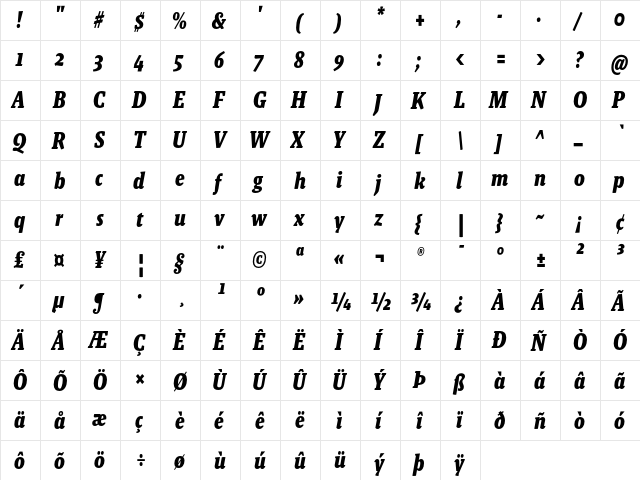
Malaga Narrow OT Bold Italic Font Preview
| Foundry | Emigre Inc. |
| Designer | Xavier Dupre |
Design Context for Malaga Narrow OT Typeface
Malaga Narrow OT offers clean, dependable letterforms without strong stylistic allegiance, making it a practical choice for designers who need flexibility. The slanted form adds forward momentum and visual energy. The heavy weight commands attention and anchors typographic hierarchies. The condensed width makes it efficient for tight spaces without sacrificing legibility.
Pro Tip: Use Malaga Narrow OT for emphasis, pull quotes, and subheadings where its slanted energy can add rhythm to the layout.